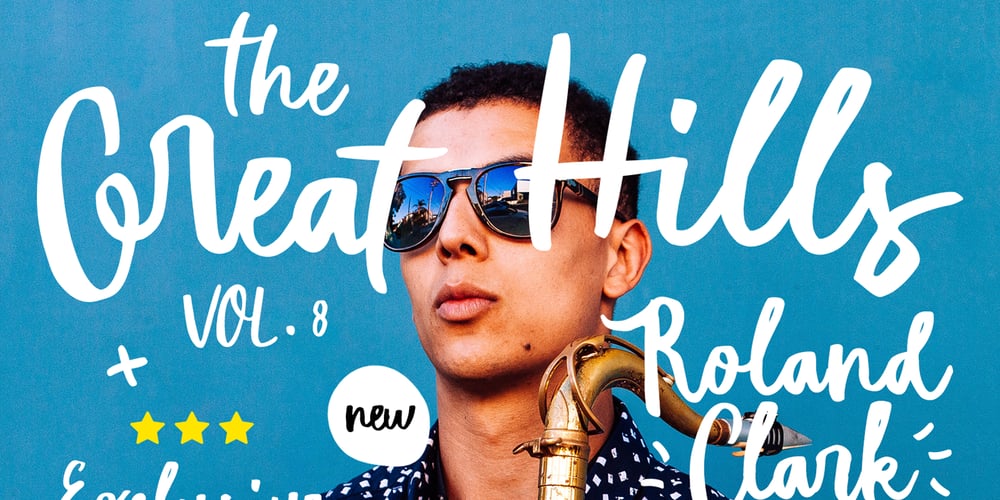
TF Hillmark Font Family was designed by Firman Suci Ananda, Fajar Wahyu Pribadi and published by Tyfomono. TF Hillmark contains 1 styles and family package options. Meet Hillmark, a brand new typeface from Tyfomono. Designed to fulfil your trend-catching things with the edgy style and undeniable artsy look. Perfectly fit for your fashion branding stuff, magazine, handwriting logo, inspirational quote poster, oh well you name it. Features: Uppercase Lowercase Numerals & Punctuations (Opentype Standard) Accents (Multilingual Characters) Stylistic Alternates Ligatures Language support : Danish, Dutch, English, Filipino, Finnish, French, Galician, German, Icelandic, Indonesian, Irish, Italian, Norwegian Bokmål, Norwegian Nynorsk,Portuguese, Romansh, Spanish, Swahili, Swedish, Swiss German. Use a program that supports OpenType features such as Adobe Illustrator CS, Adobe Photoshop CS, Adobe Indesign & CorelDraw X6-X7 to access the full features of this typeface. But if you dont, you can still copy-paste the character that you wanted into your working software using Characters Map (for Windows) and Fontbook (for Mac)